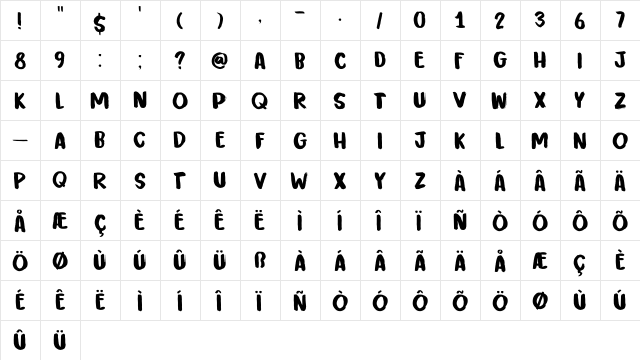
Twirrewyn DEMO Regular
| Foundry | David Kerkhoff |
| Designer | David Kerkhoff |
Design Context for Twirrewyn DEMO Typeface
Twirrewyn DEMO is a composed and adaptable typeface that performs quietly and consistently across a wide range of design contexts.